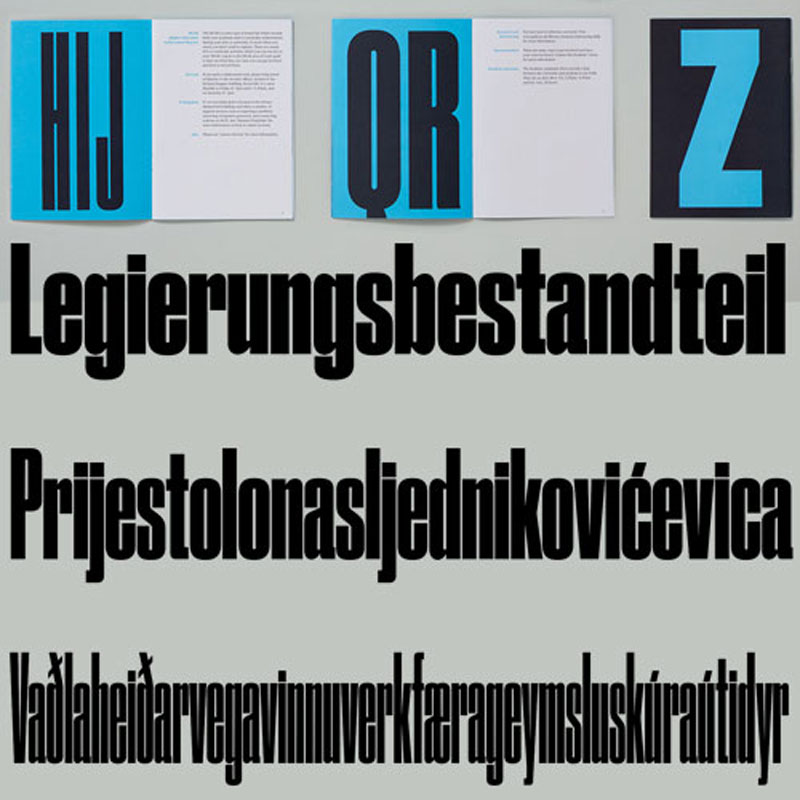
Of the families in the Druk collection, Druk Condensed is the most explicit homage to Willi Fleckhaus. Drawn for the 2011 “Year in Review” issue of Bloomberg Businessweek, Druk Condensed features three widths in the same Super weight.
The Condensed and X Condensed are very graphic, and the XX Condensed can appear almost abstract. Designer Berton Hasebe introduced a purposeful and subtle change to the texture of the typeface by preventing terminals and crossbars from lining up too often on the horizontal axis.
This keeps an emphasis on the verticality of the letterforms and prevents words and headlines from becoming monotonous. The maximum point size for this family is limited only by the size of the page; however, minimum sizes should be respected.
The Condensed does not work well below 40pt; X Condensed should be used only at 48pt and above; and XX Condensed is limited to 72pt and above.